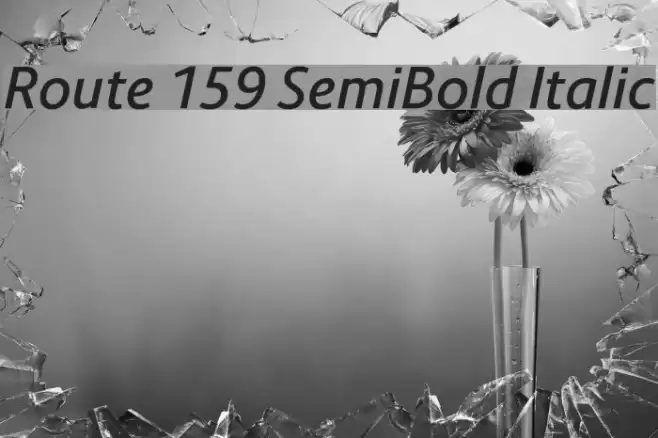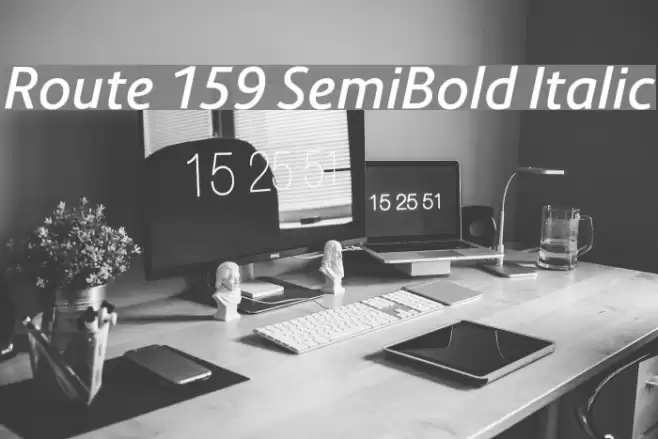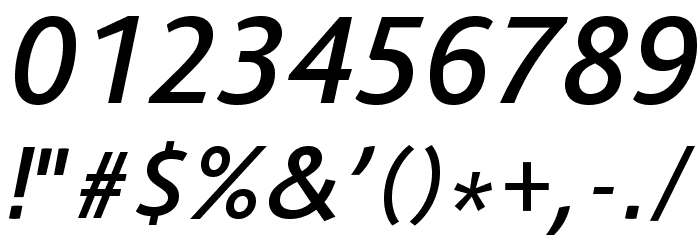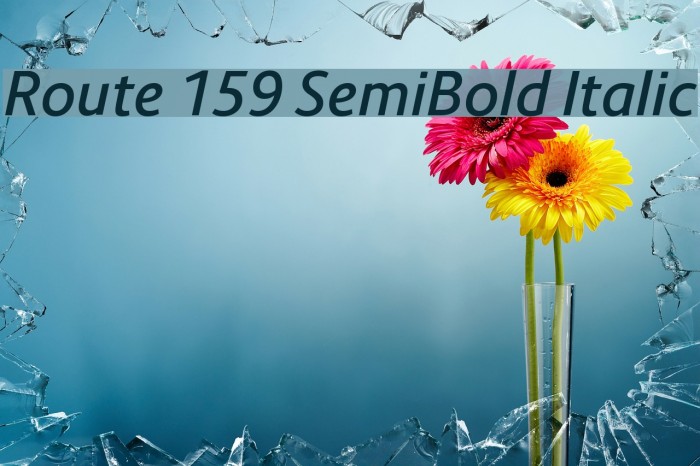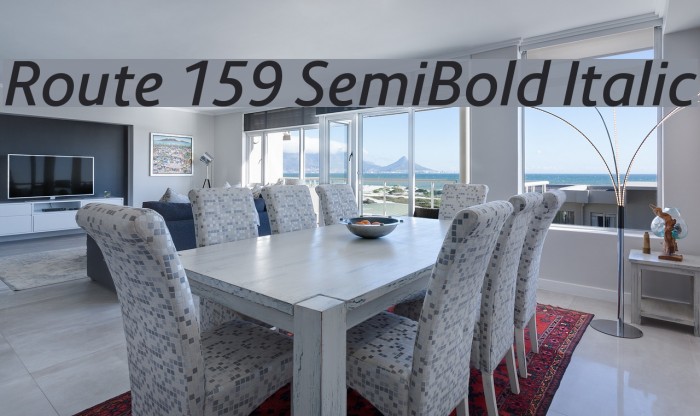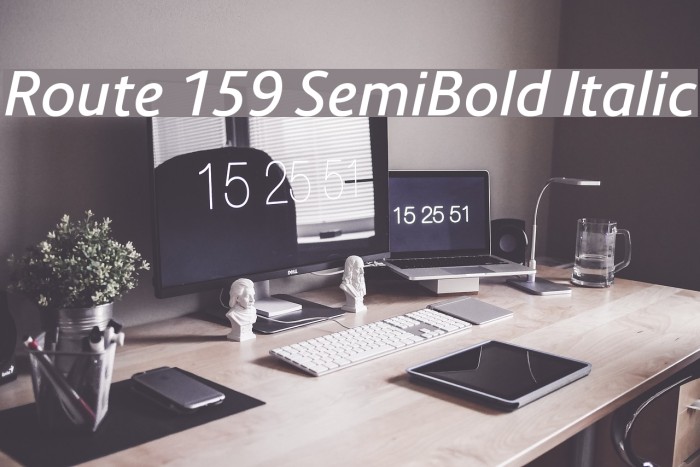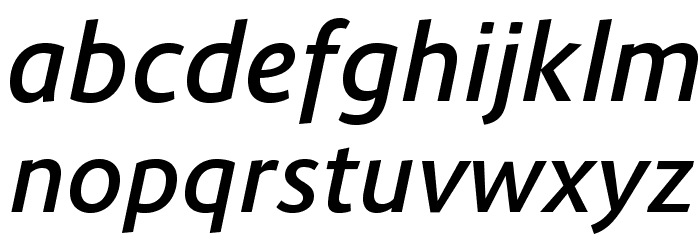
Route 159 SemiBold Italic Font
Route 159 SemiBold Italic Description
This font exhibits a sleek and modern design with a semi-bold weight that provides a strong presence on the page. The italic style adds a dynamic and forward-leaning appearance, making it suitable for conveying motion or emphasis. The characters are well-proportioned with a slight slant, enhancing readability while maintaining a stylish edge. The clean lines and smooth curves contribute to its contemporary aesthetic, making it versatile for various design applications. The font includes a full set of uppercase and lowercase letters, numerals, and a range of special characters, ensuring comprehensive usability.
A sleek, modern semi-bold italic font with a dynamic and stylish appearance from Uncategorized fonts.
- Proposed Projects: Ideal for branding, advertising, editorial design, and digital media where a modern and dynamic look is desired.
- Use Case: Headlines, Logos, Advertising